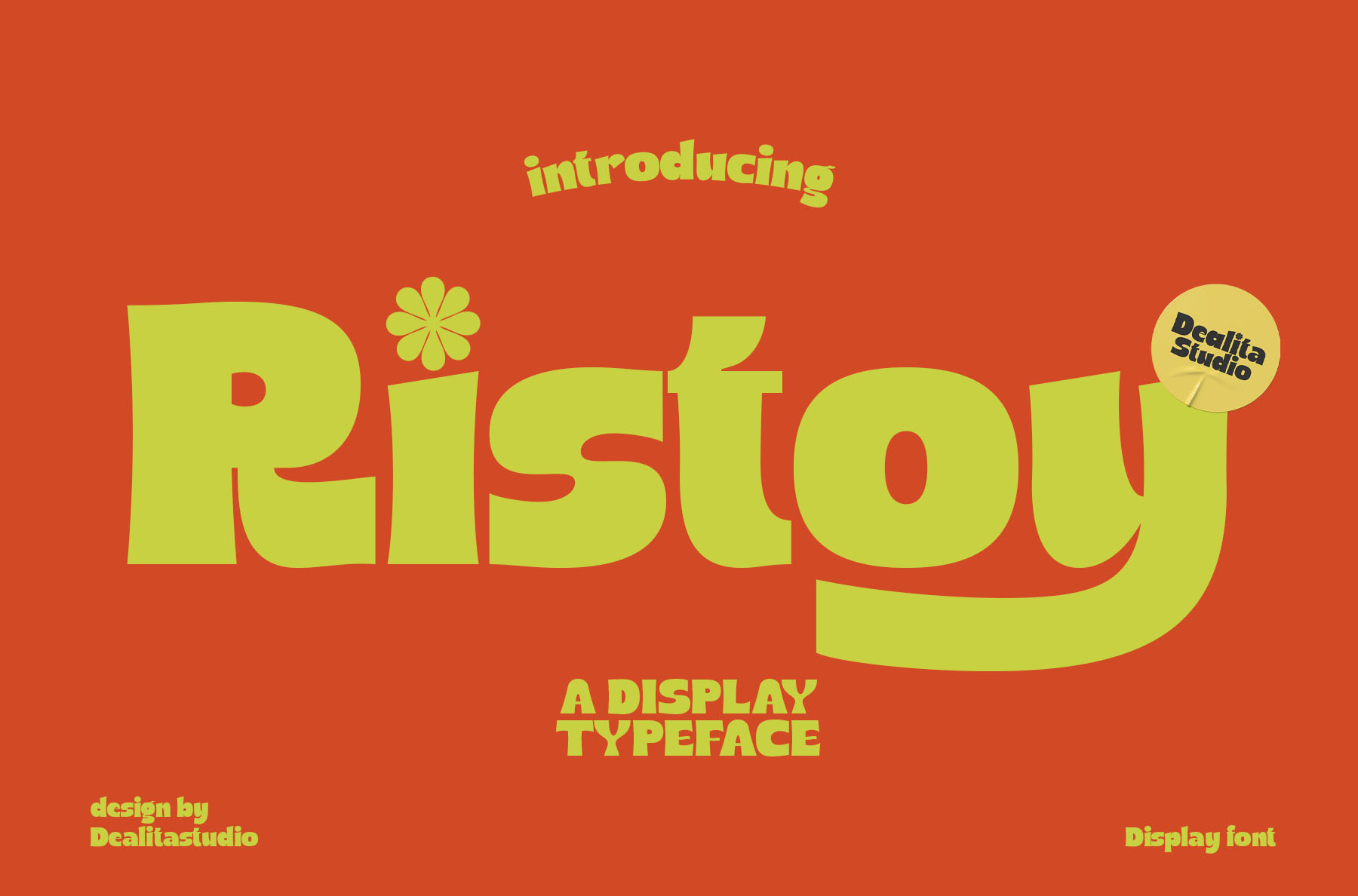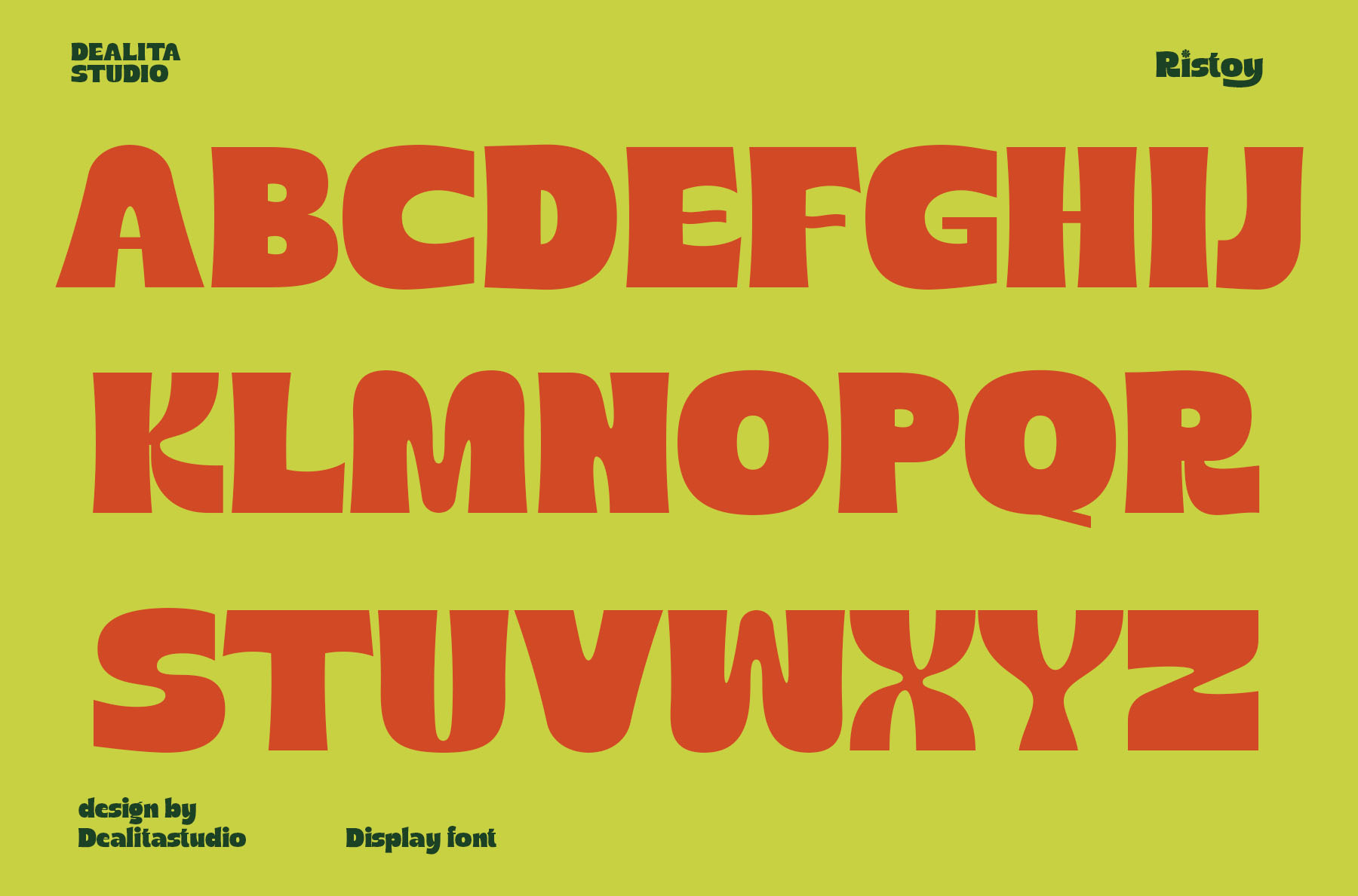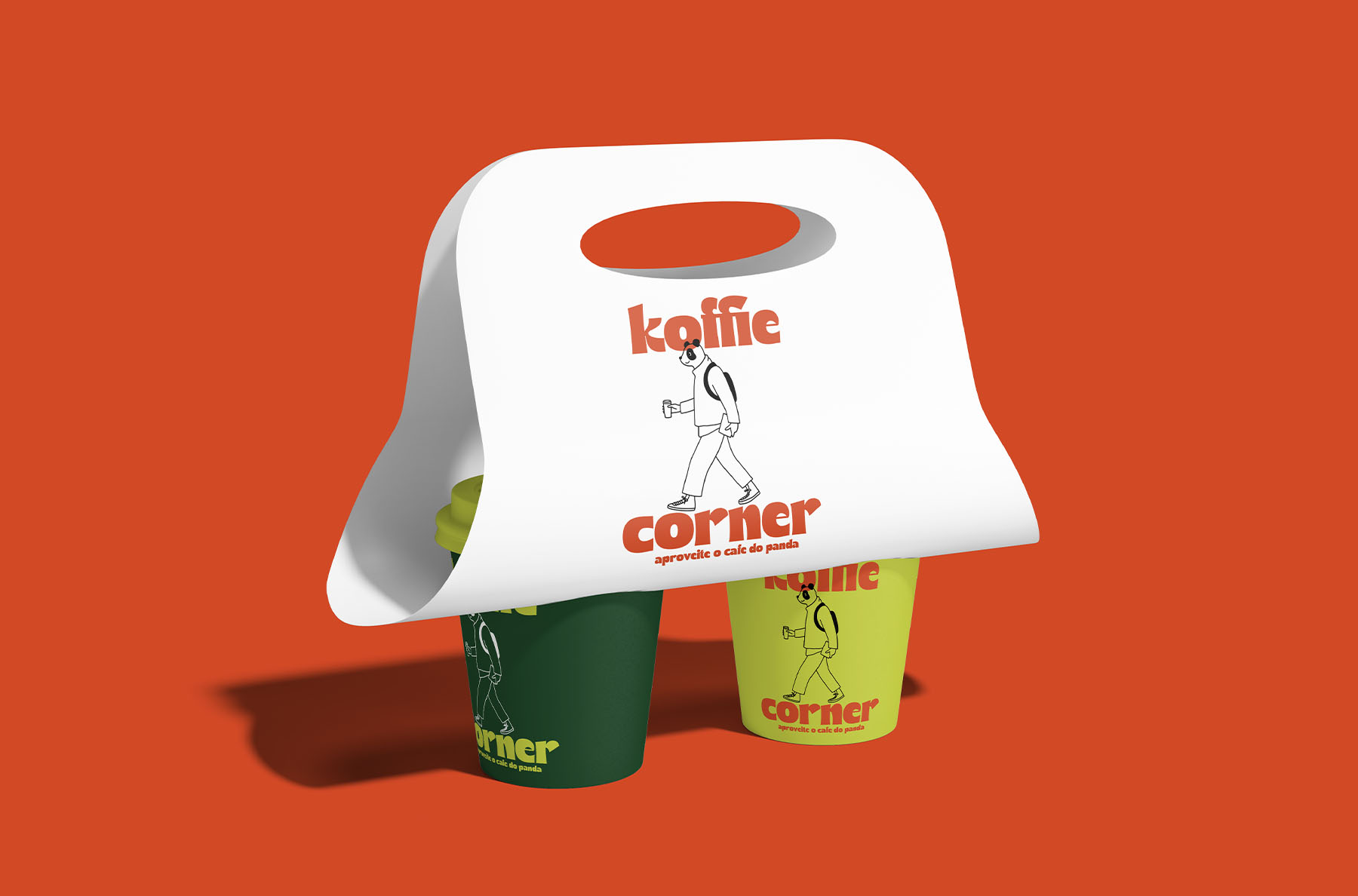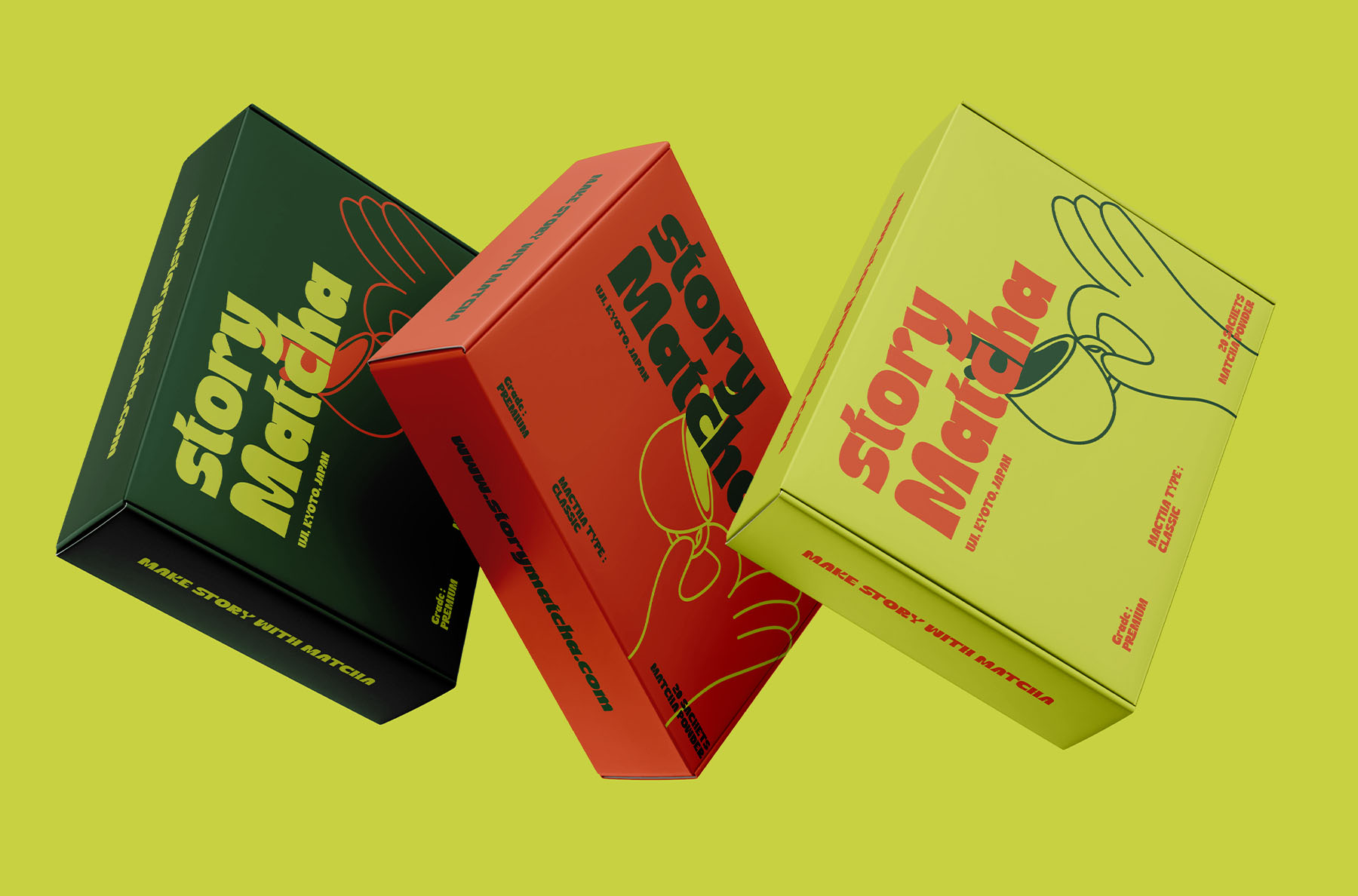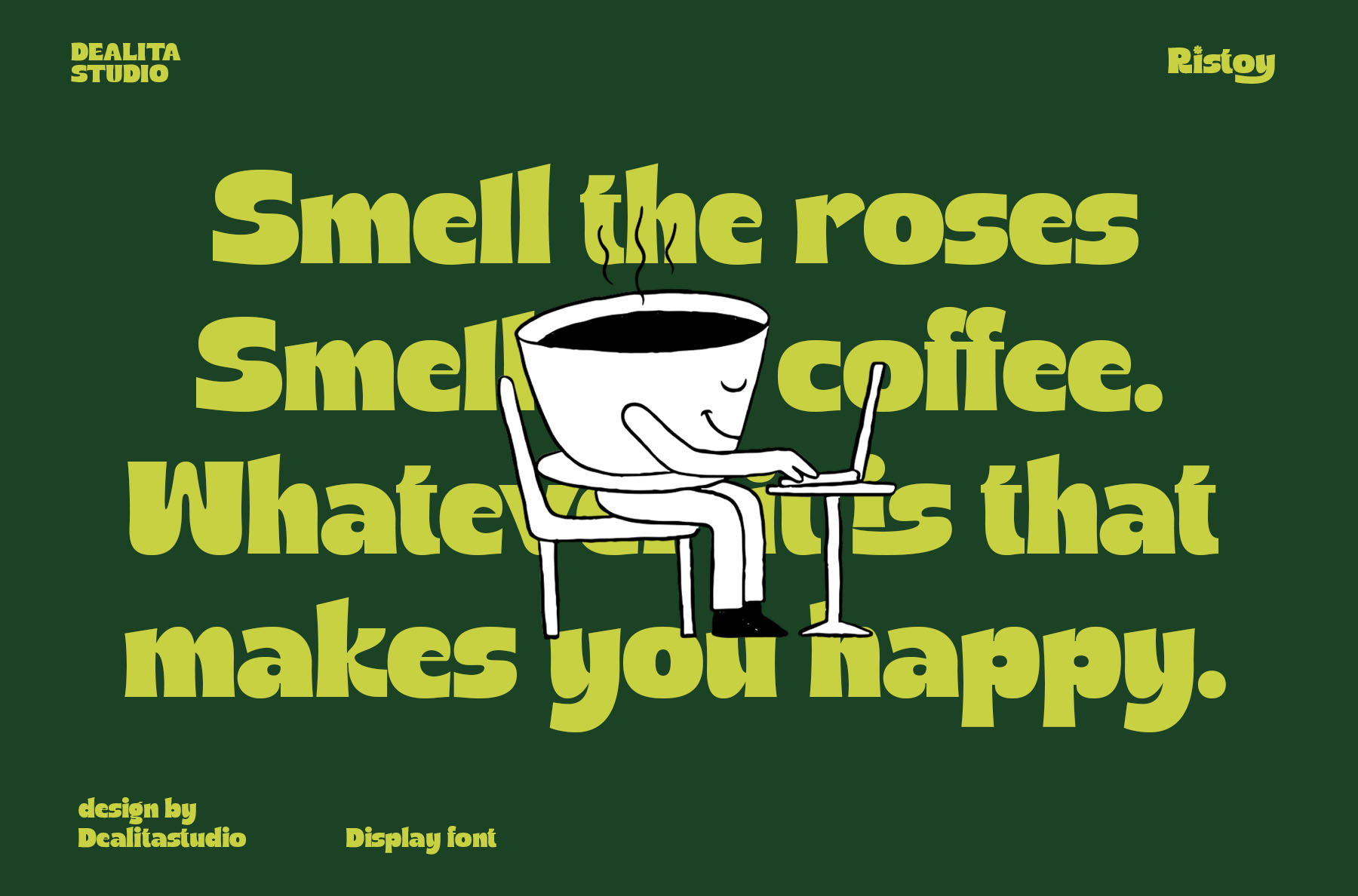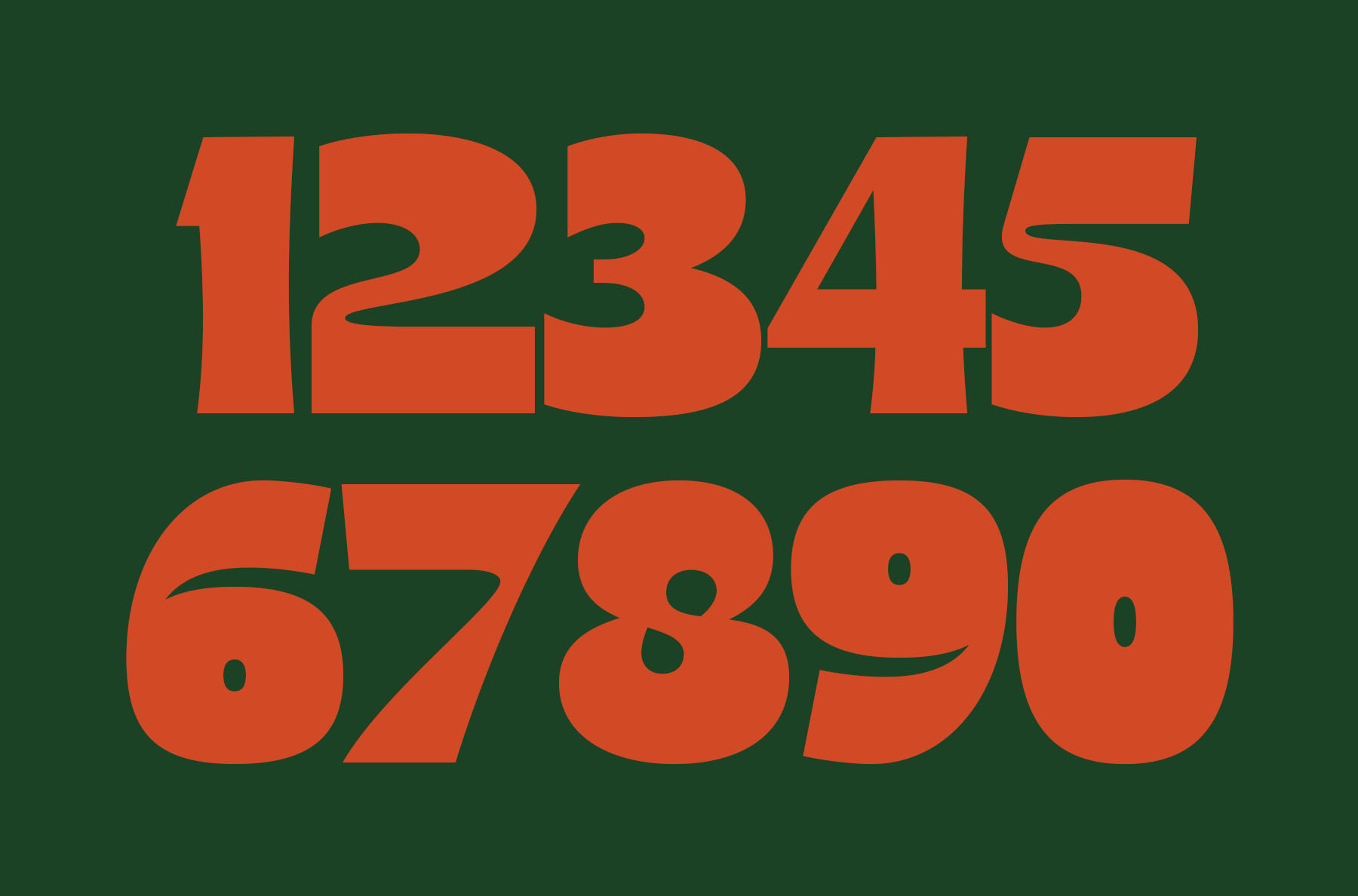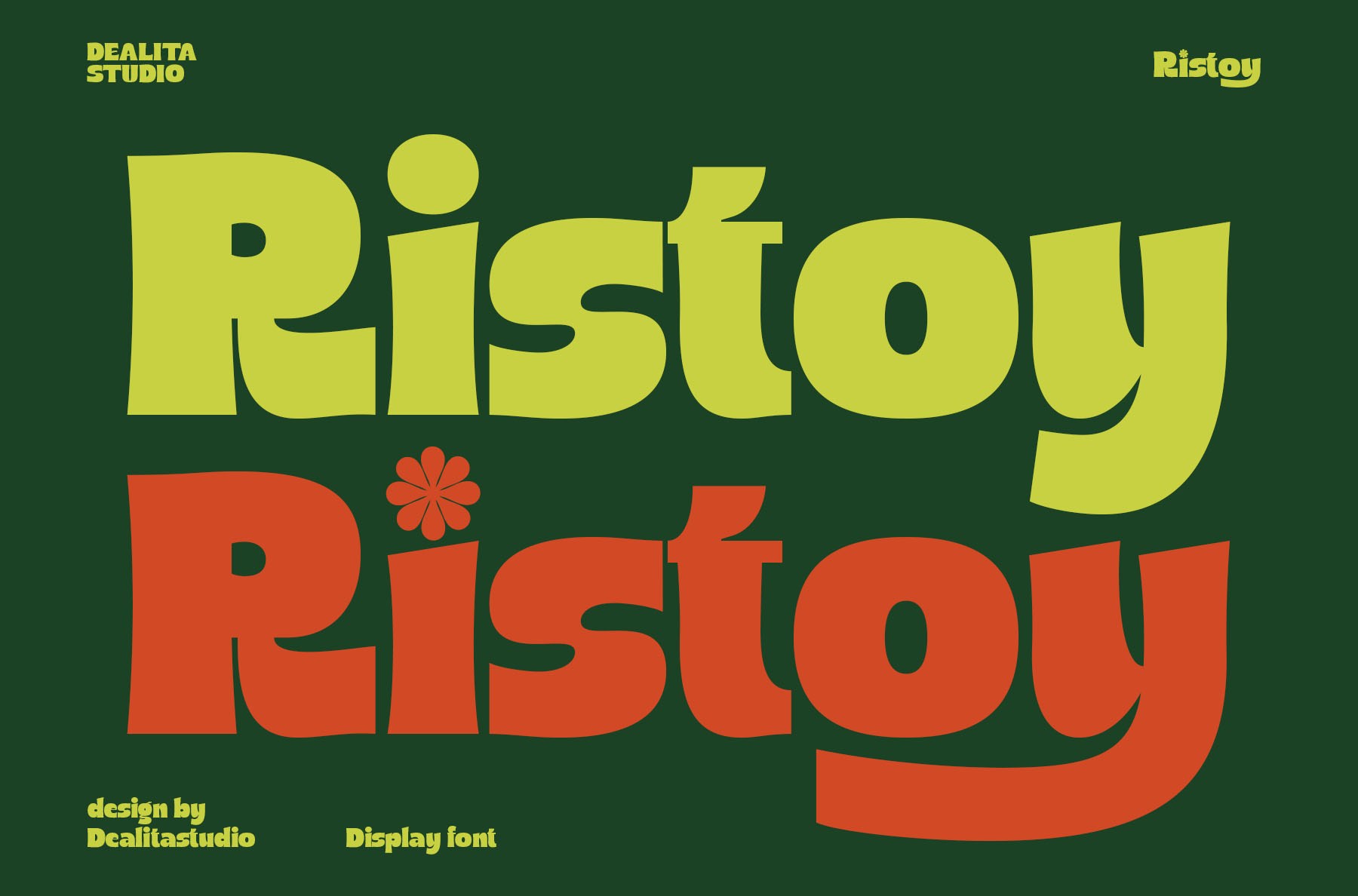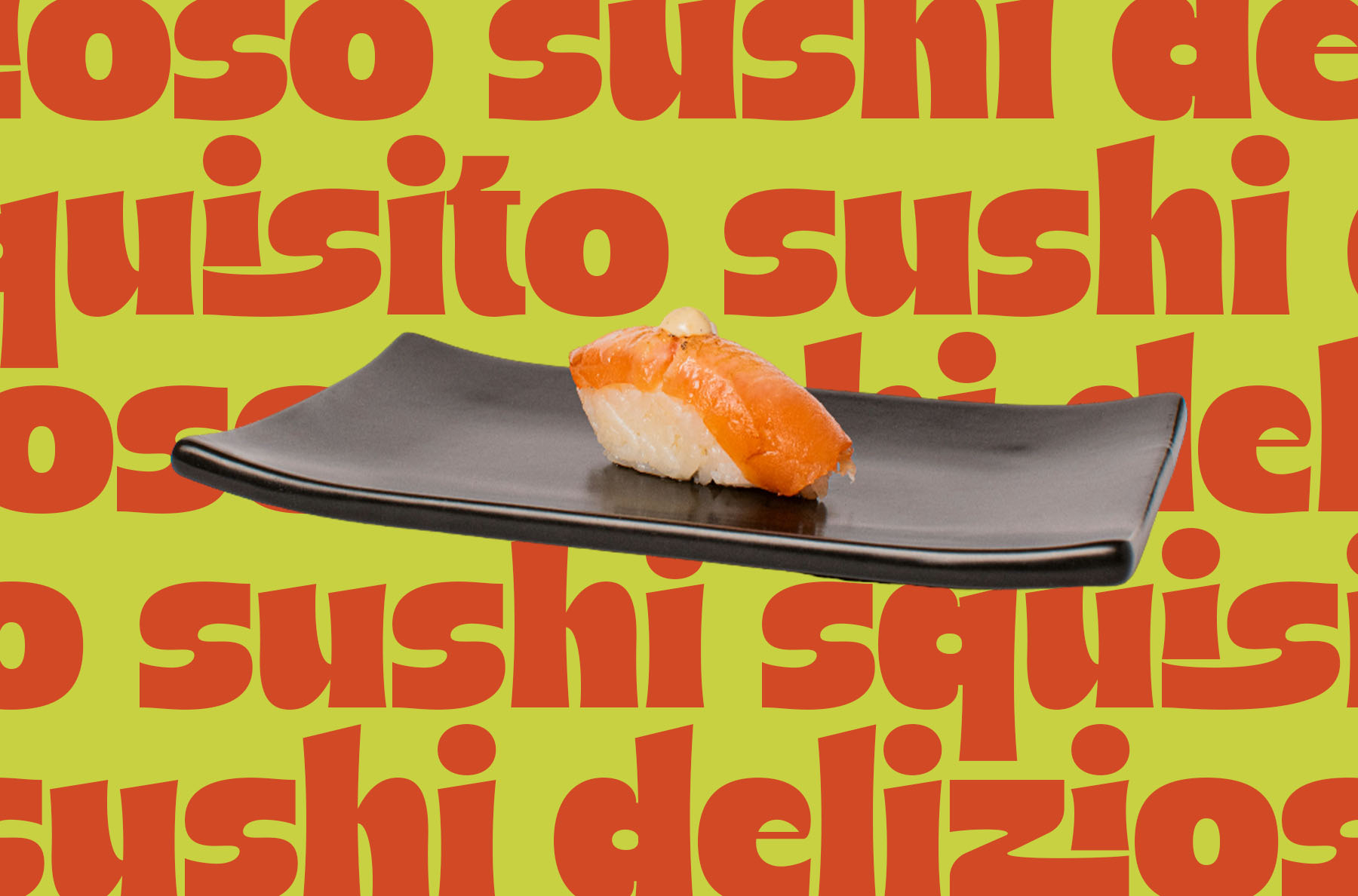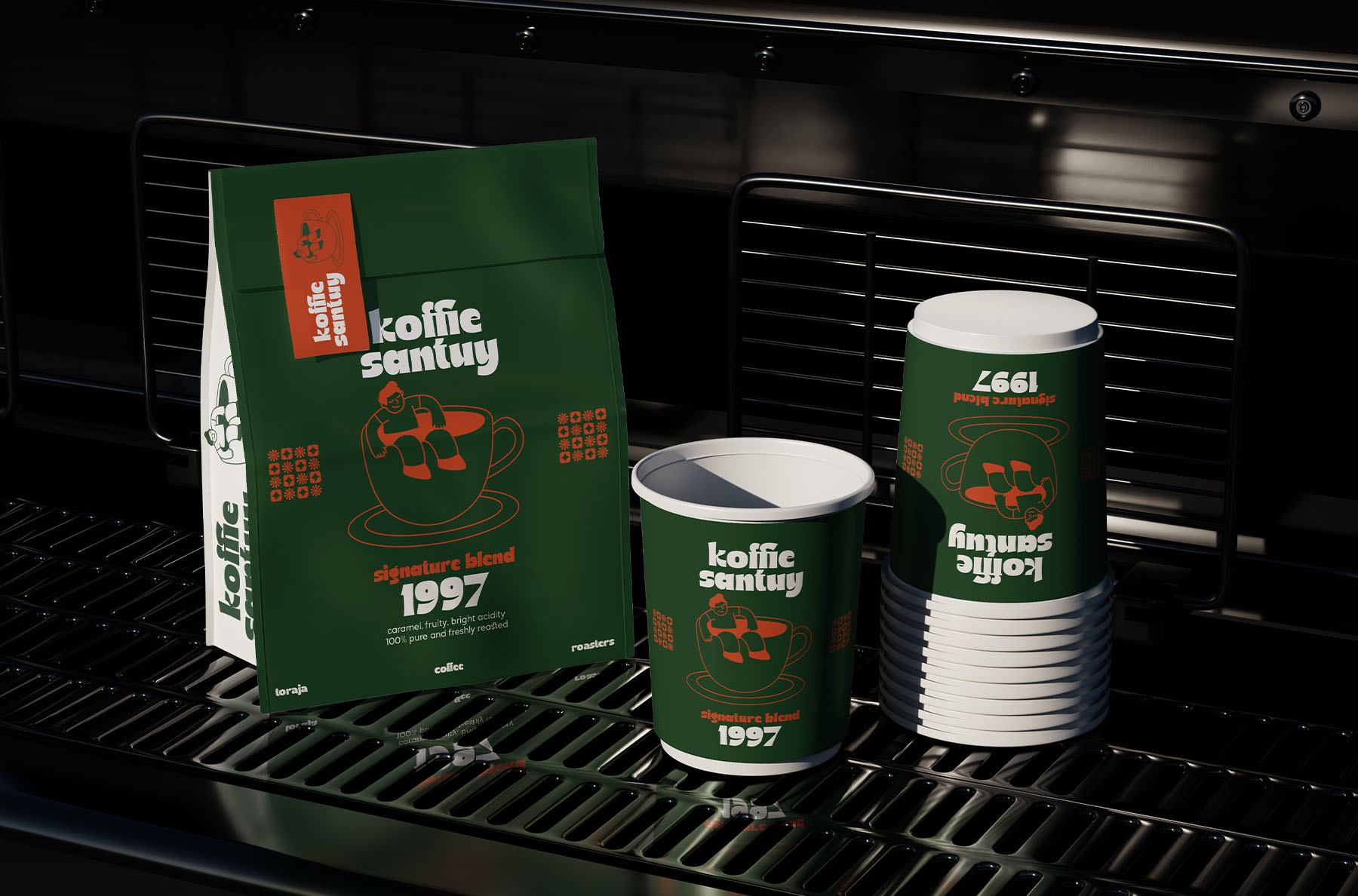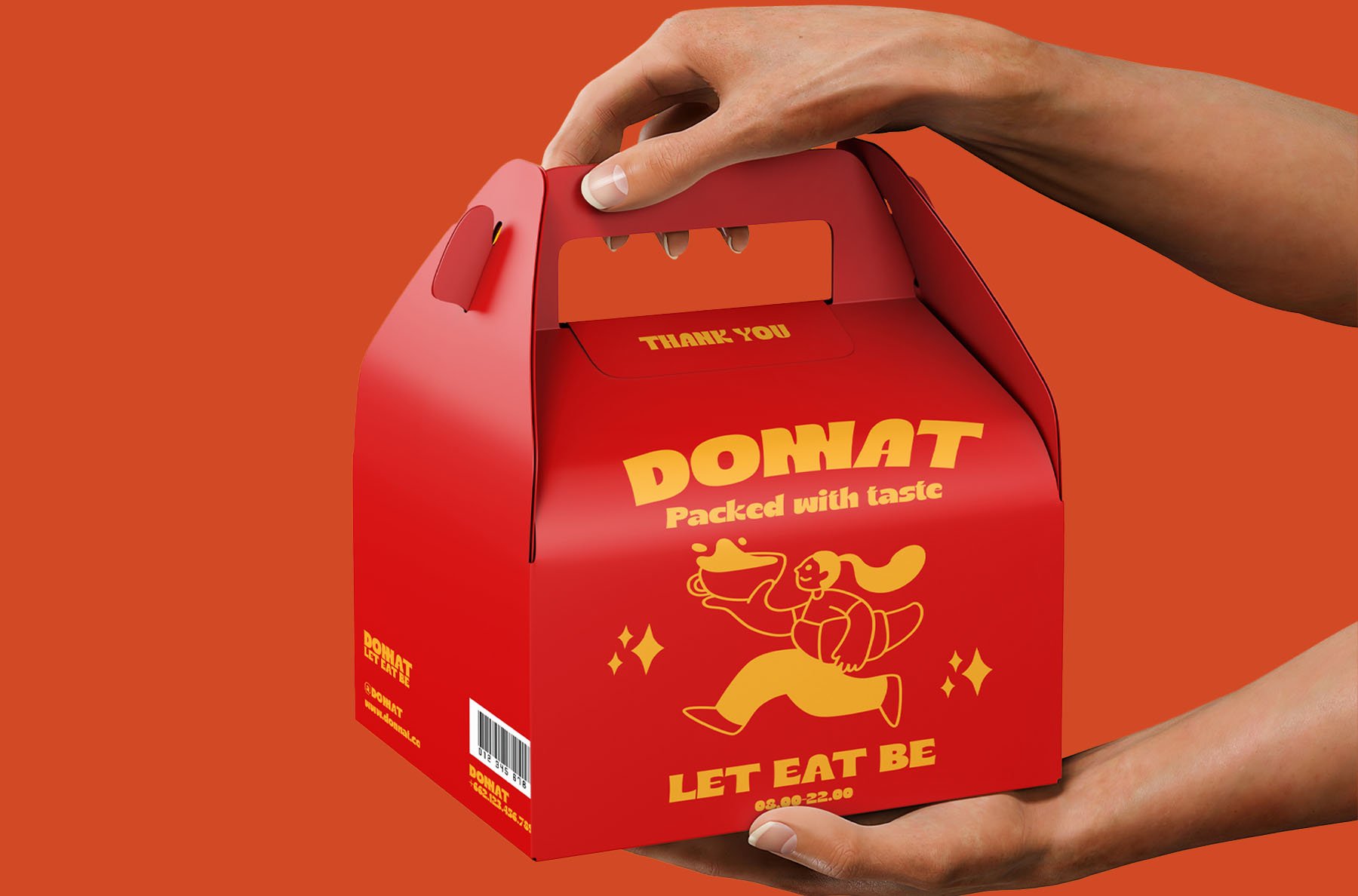
Ristoy | Playful Bold Sans Serif for Packaging & Apparel
Meet Ristoy, a playful bold sans serif font that brings a massive dose of vintage charm to your creative toolkit. With its unapologetically chunky letterforms and nostalgic energy, this typeface is built to make your typography jump off the page.
Whether you are crafting eye-catching retro branding, vibrant fun packaging, or striking poster designs, Ristoy delivers an instant burst of personality. It is the absolute perfect choice for heavy display titles that demand attention and a smile.
Why You’ll Love Designing With Ristoy:
- Create Seamless Flow: 50 built-in ligatures allow your letters to interlock naturally, giving your headlines a customized, hand-drawn feel.
- Stand Out From the Crowd: Access versatile Stylistic Alternates (SALT, SS01, AALT) to switch up individual character vibes, ensuring your logos and packaging always look completely unique.
- Design for a Global Audience: Massive 398 Glyph set with exceptional 93-language support means your fun, chunky designs can speak to international markets without missing a beat.
- OpenType Features: Standard & Discretionary Ligatures, plus extensive Stylistic Alternates.